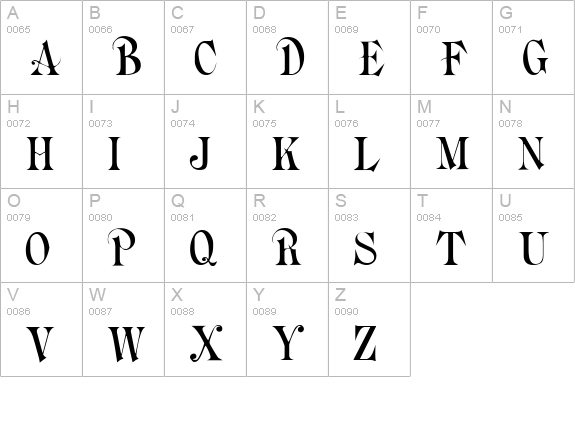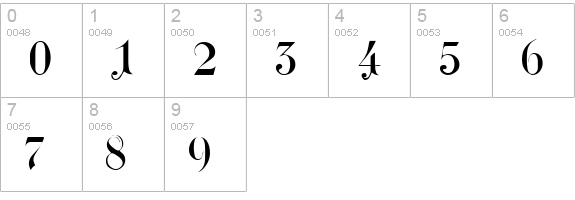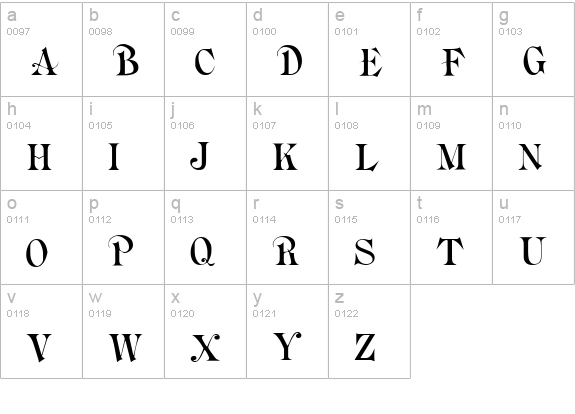
Briolin Font Details
Briolin font is a versatile and stylish typeface that exudes elegance and sophistication. With its sleek lines and modern design, Briolin is perfect for a wide range of design projects, from branding to editorial design. This font is ideal for creating eye-catching headlines, elegant logos, and striking packaging designs. What sets Briolin font apart is its unique combination of classic elegance and contemporary flair. The clean and crisp letterforms make it highly readable, while the subtle details give it a touch of sophistication. Whether you're designing a wedding invitation, a fashion magazine spread, or a luxury brand identity, Briolin font will add a touch of class to your project. The best part? Briolin font is completely free to download at FontsMarket.com. So go ahead and give your designs a touch of elegance with this stunning typeface.